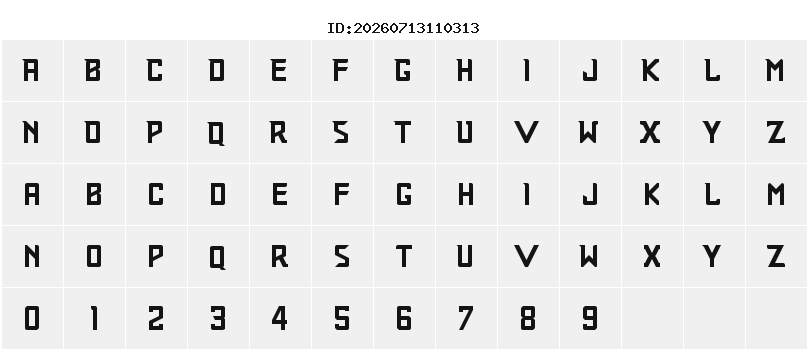
• Font Name: Railroader
• Designer: Bill Walker
• Description: ‚ÄúRailroader‚Äù was built with FontStruct ‚ÄúRailroader‚Äù is based on ‚Äúwild bull‚Äù by ‚ÄúBill Walker‚Äù (http://fontstruct.com/fontstructors/walkerws), which is based on ‚Äúnxtstp‚Äù by ‚Äúundercurrent‚Äù (http://fontstruct.com/fontstructors/undercurrent)
About Railroader.ttf
Railroader.ttf is a modern, elegant sans-serif font designed for ultimate readability and visual harmony. Perfect for branding, headlines, web design, and print materials.